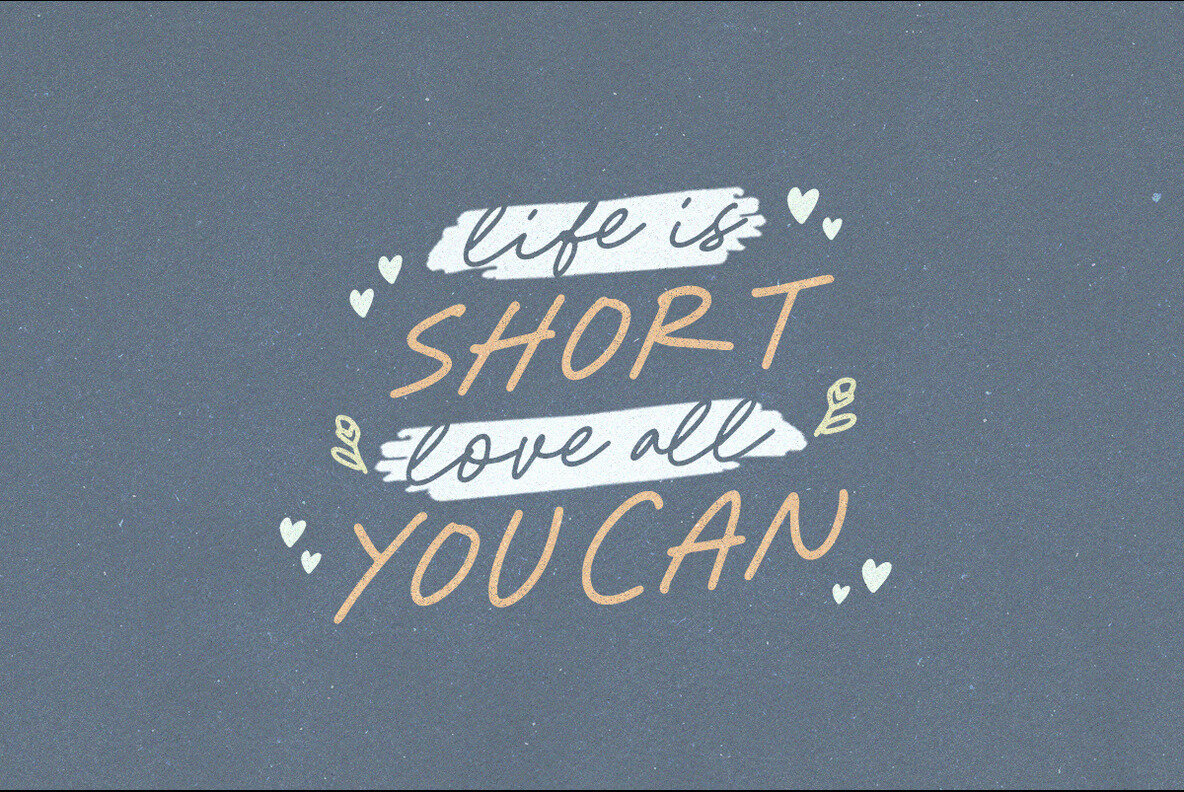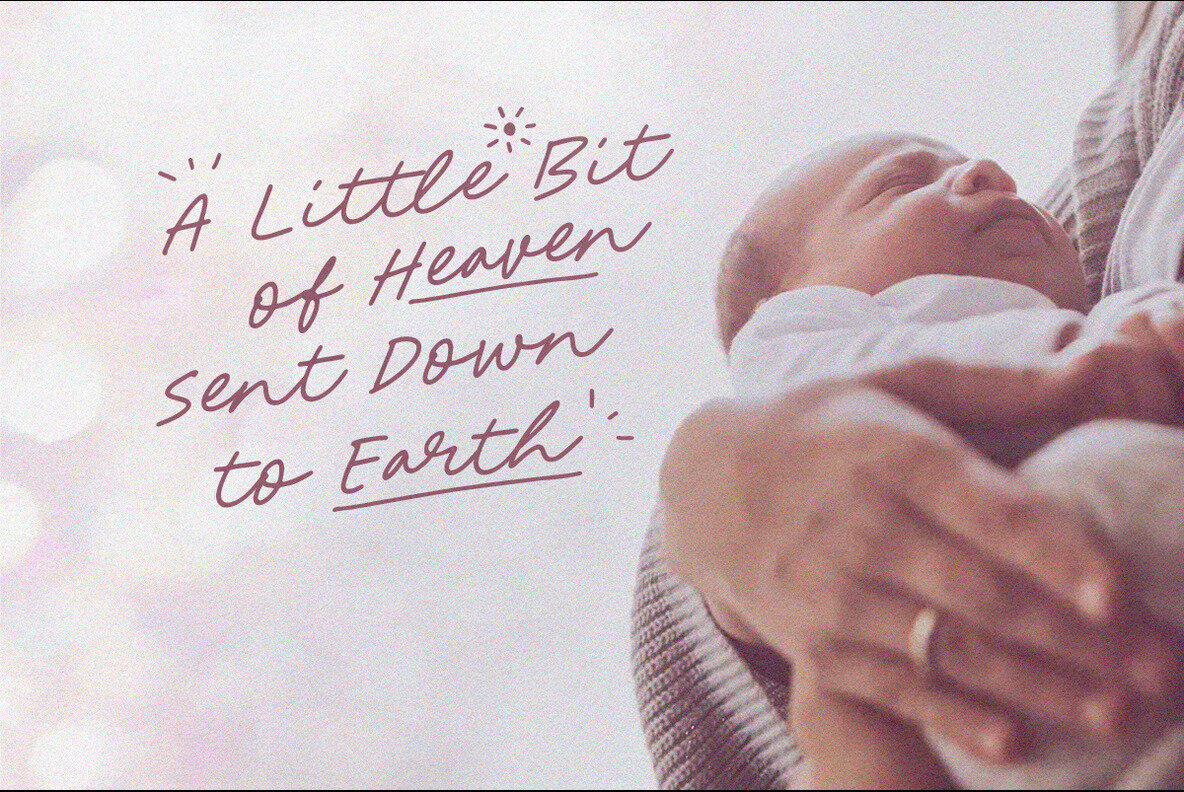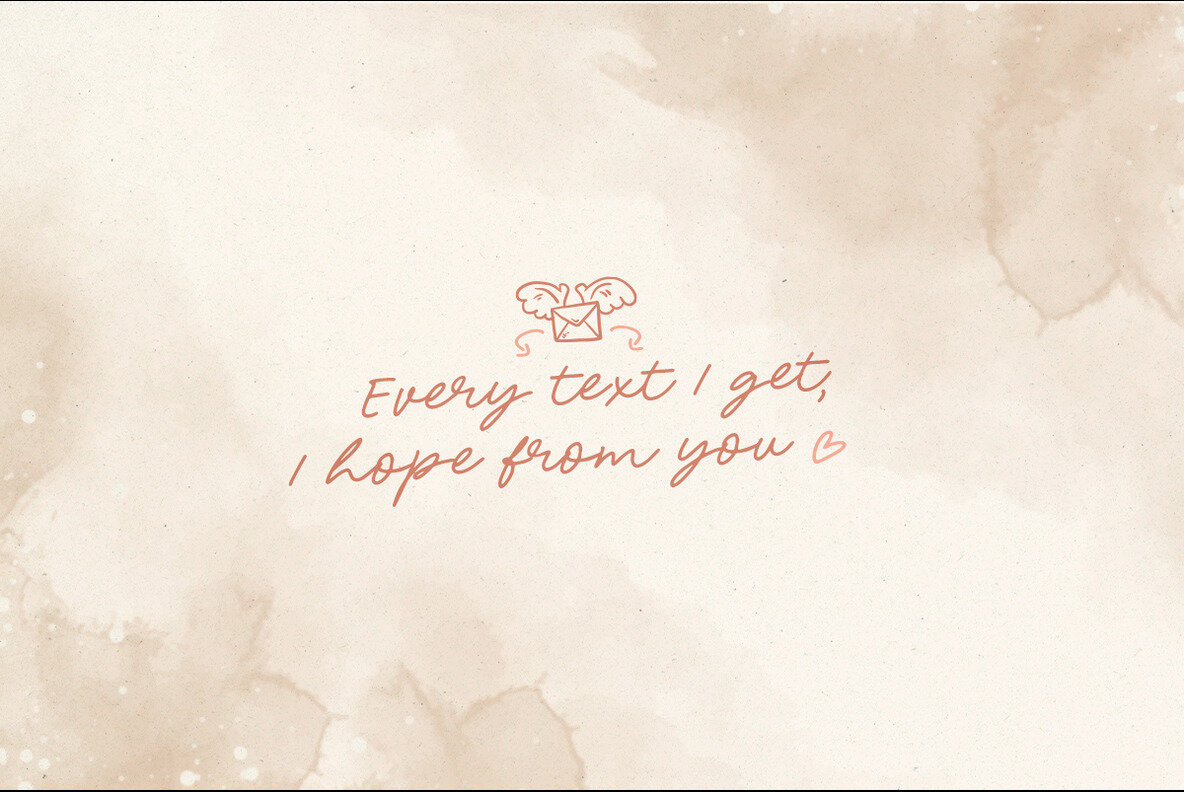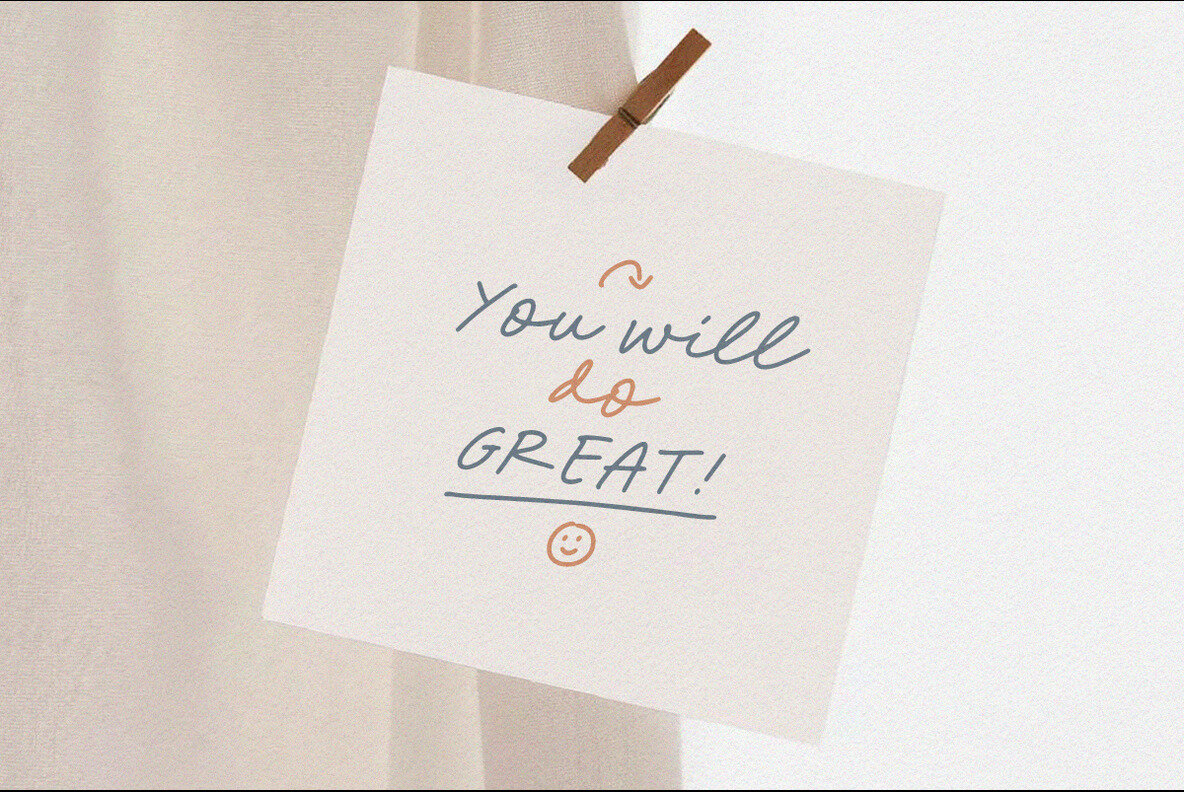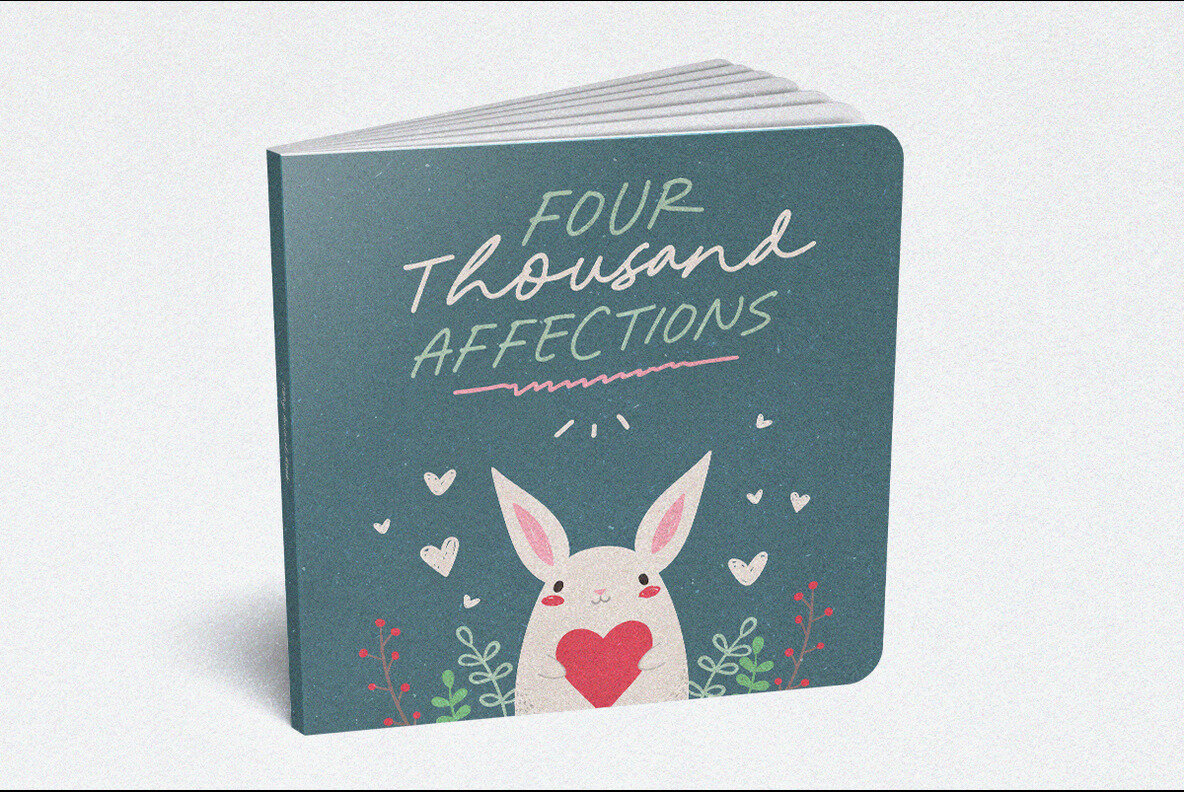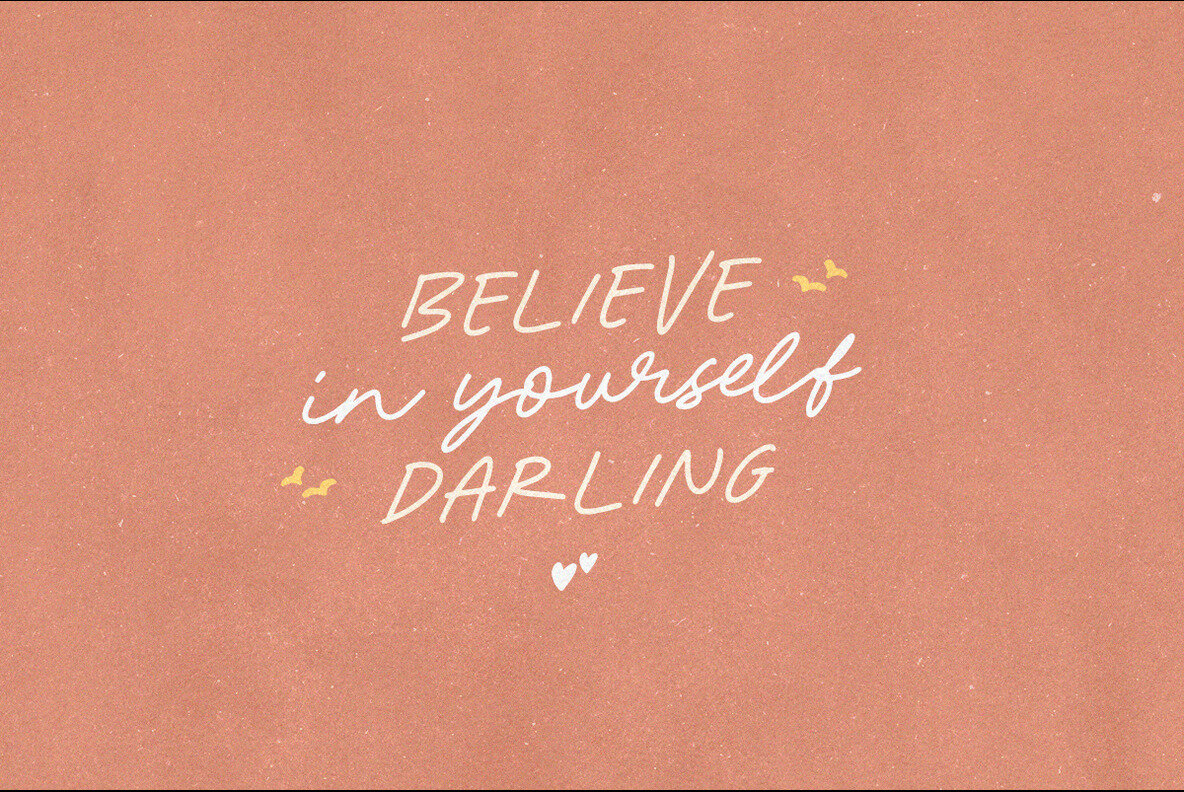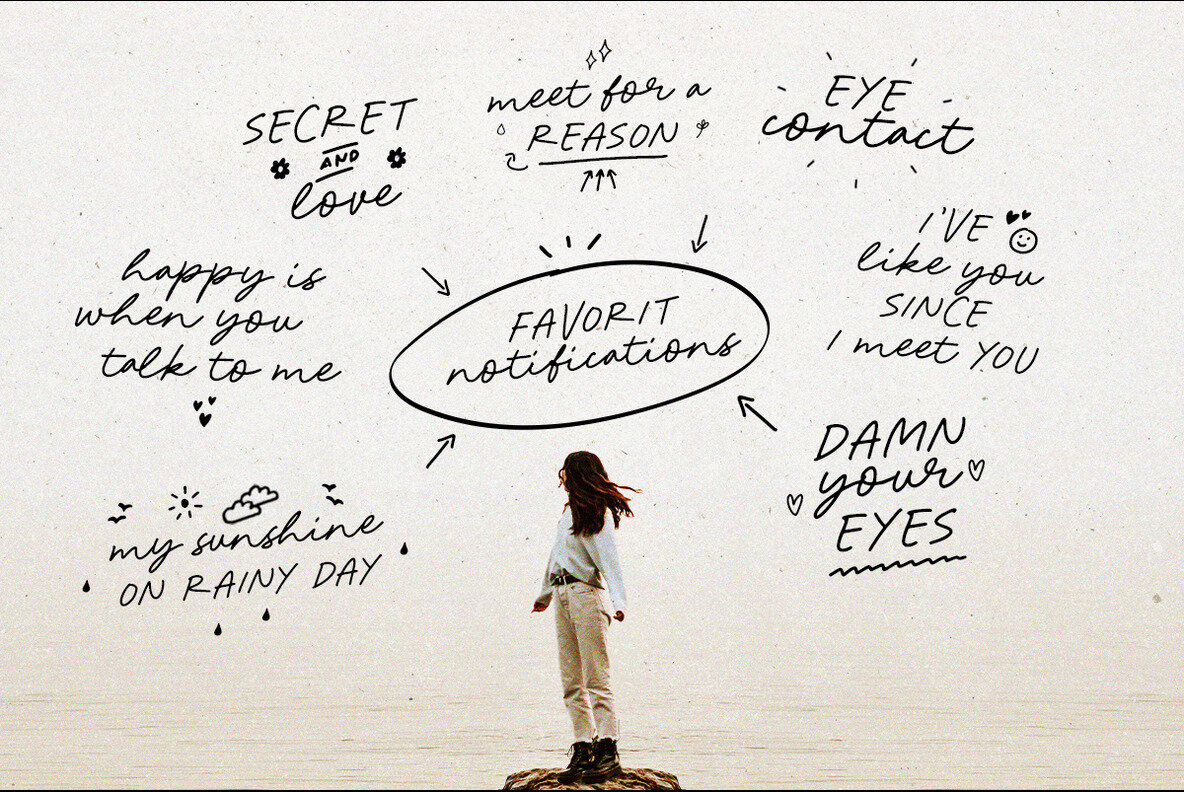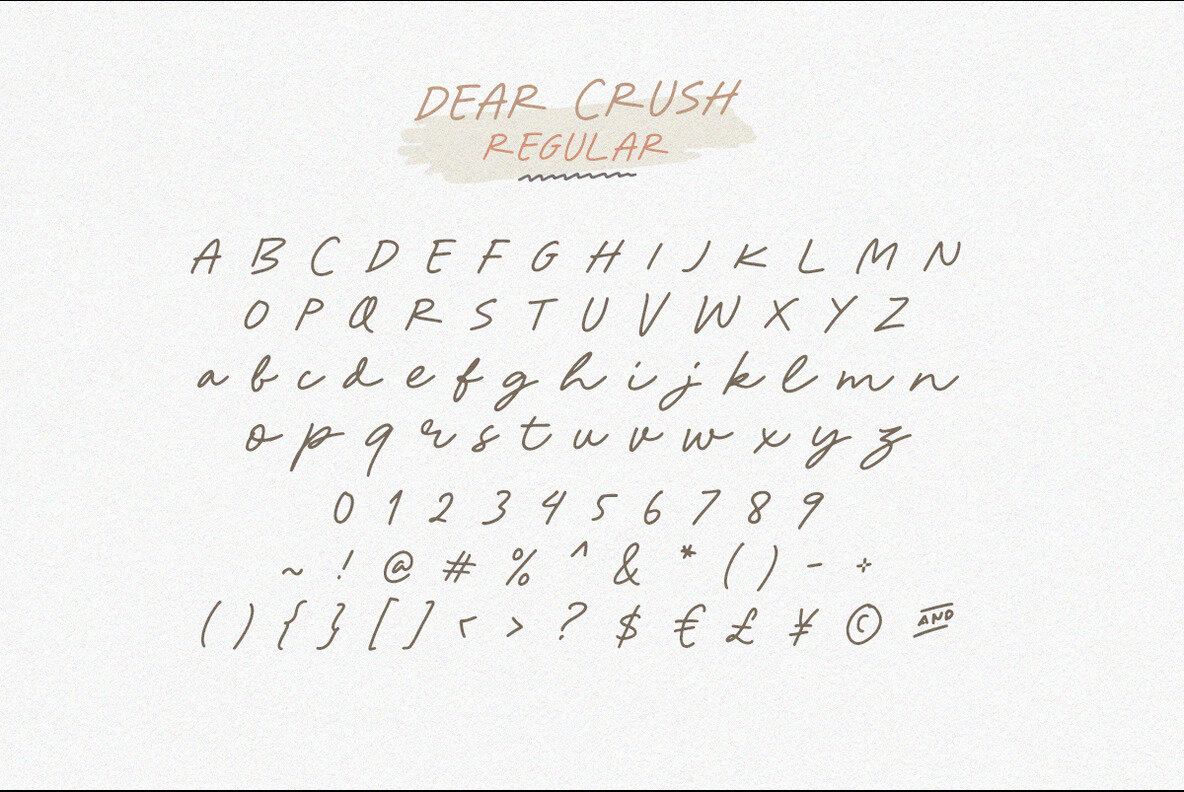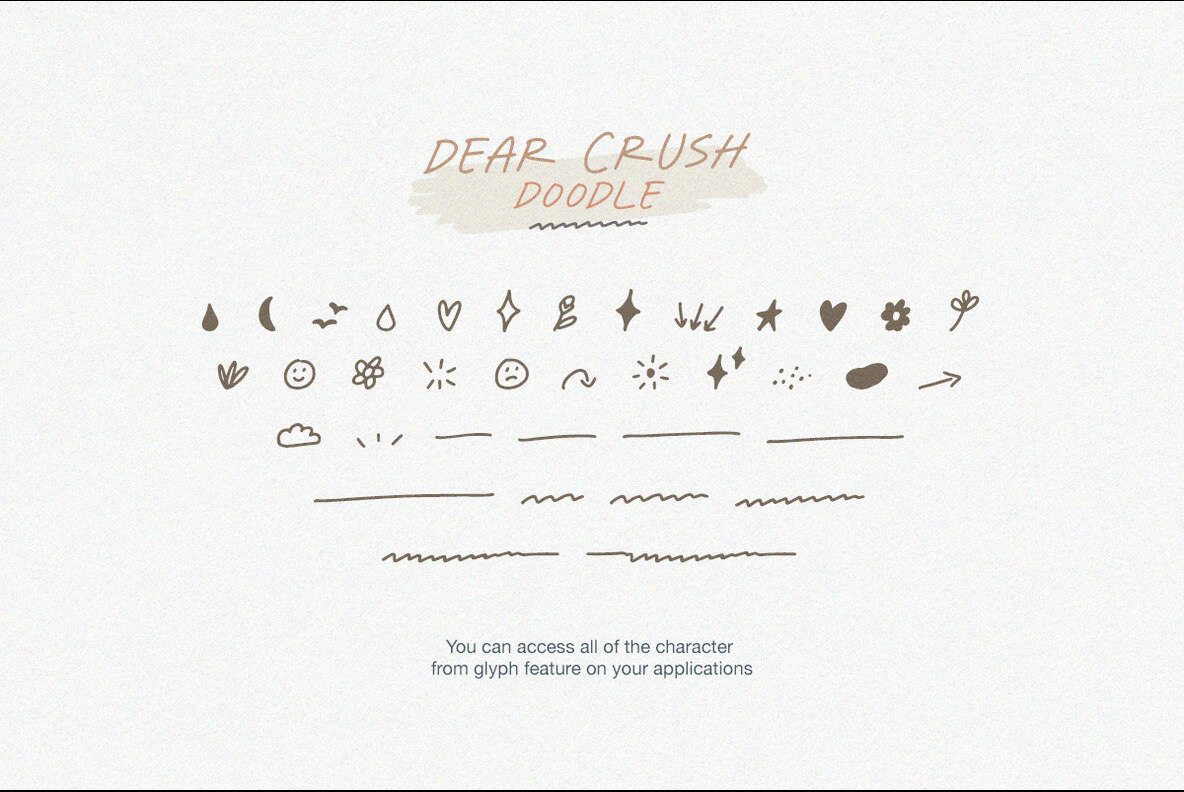
Dear Crush Font
Dear Crush Regular
Dear Crush Doodle
Dear Crush is a handwritten font that combining cute sans and friendly script in one font. You can use both lowercase & uppercase separately and still looking great. This font feels like font duo that compliment each other. You can use this font for any purposes such as quotes, logo, book cover, etc. The best part is, in the package you will get the doodle fonts to complete your next projects! Dear Crush also support Multi Language!